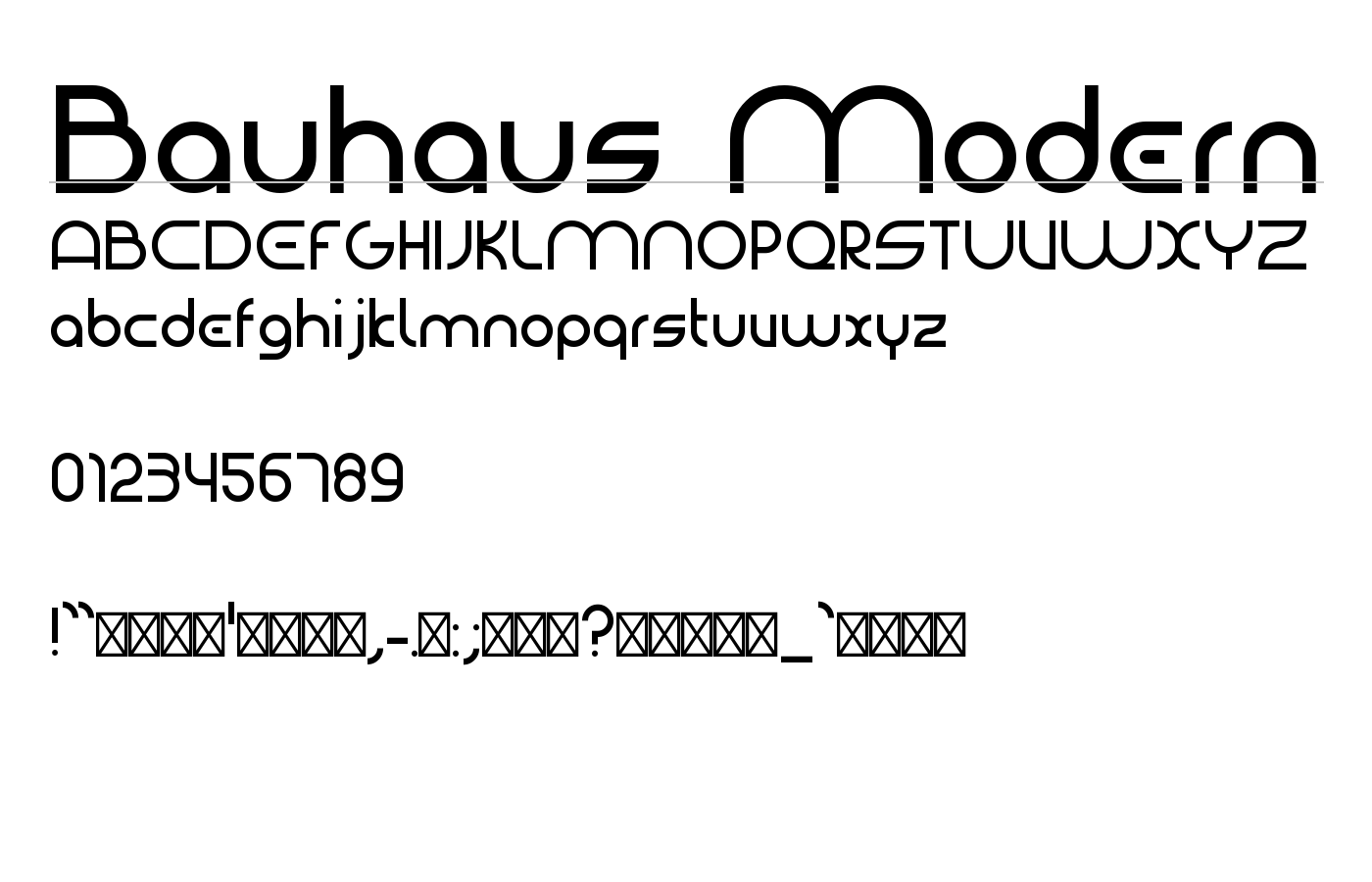
Bauhaus Modern is a sleek geometric sans serif font inspired by the iconic Bauhaus design style, featuring clean lines, tall x-height, and uniform stroke widths. Its distinctive letterforms combine a contemporary modern feel with retro charm, making it perfect for eye-catching headlines, branding, and creative projects that seek a stylish yet minimalist look. This font works well in logos, posters, and digital media where a bold, artistic statement is desired.
Bauhaus Modern Font
About Bauhaus Modern Font
| Font family | Bauhaus Modern Font |
| Designer | Nils Kaehler |